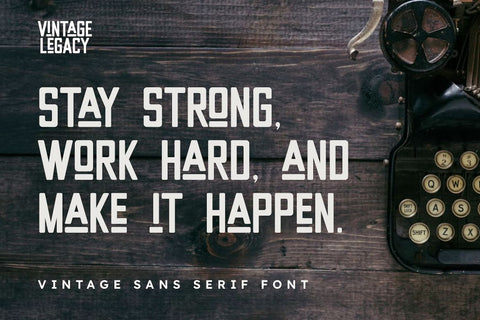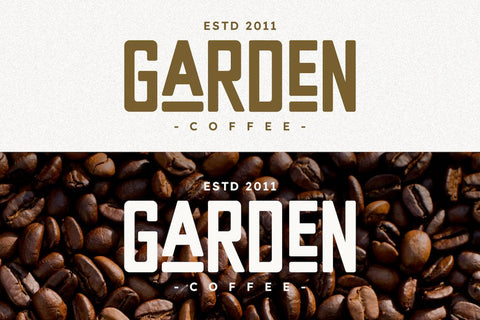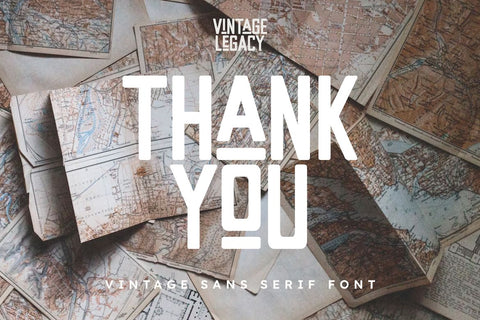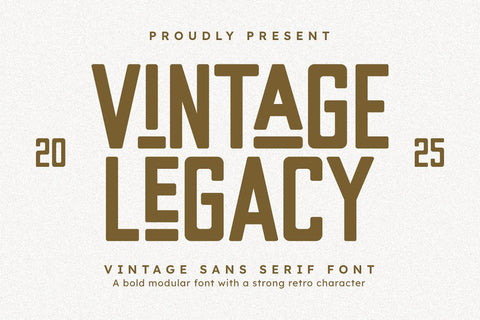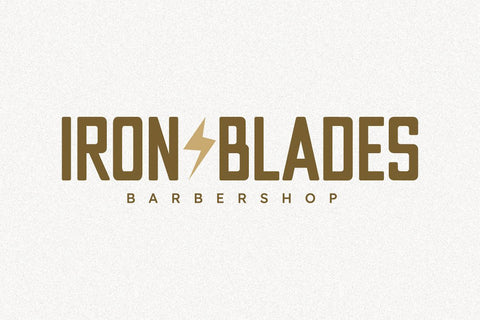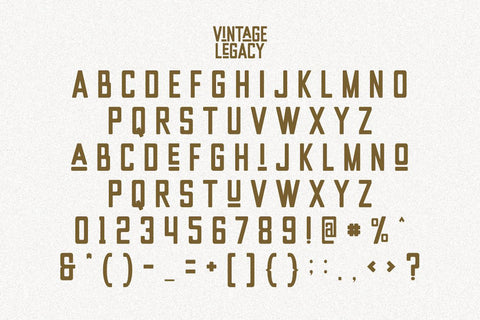
Vintage Legacy – Bold Modular Sans Serif Font with Retro Vibes
Vintage Legacy is a bold modular sans serif font with a strong retro character. Inspired by classic vintage lettering and industrial signage, this font is perfect for logo design, branding, posters, headlines, packaging, and editorial layouts. Its geometric forms and clean cuts make it ideal for creating powerful designs with a masculine and timeless touch.
This font is great for:
Vintage-inspired branding
Retro poster and advertisement layouts
Editorial and magazine design
Typography for masculine products or businesses
Bold logotype and titles